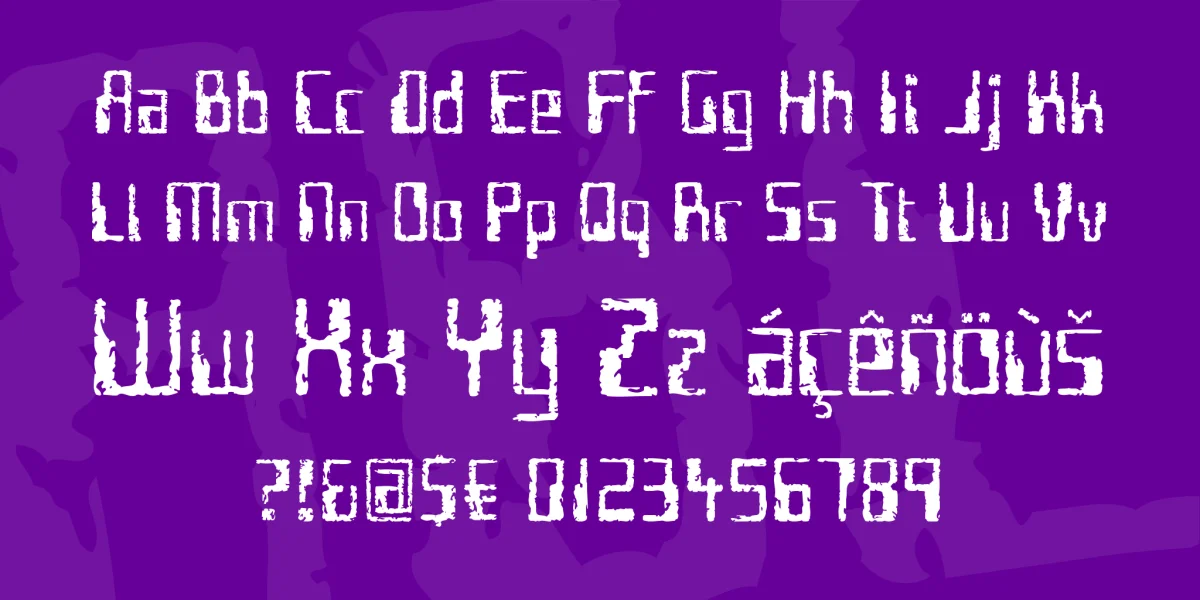
In the 1970s I was anxious and distressed about the future. I was right. In 1975 Future Imperfect was submitted to, and rejected by, Letraset. I wish I’d kept the rejection slip.